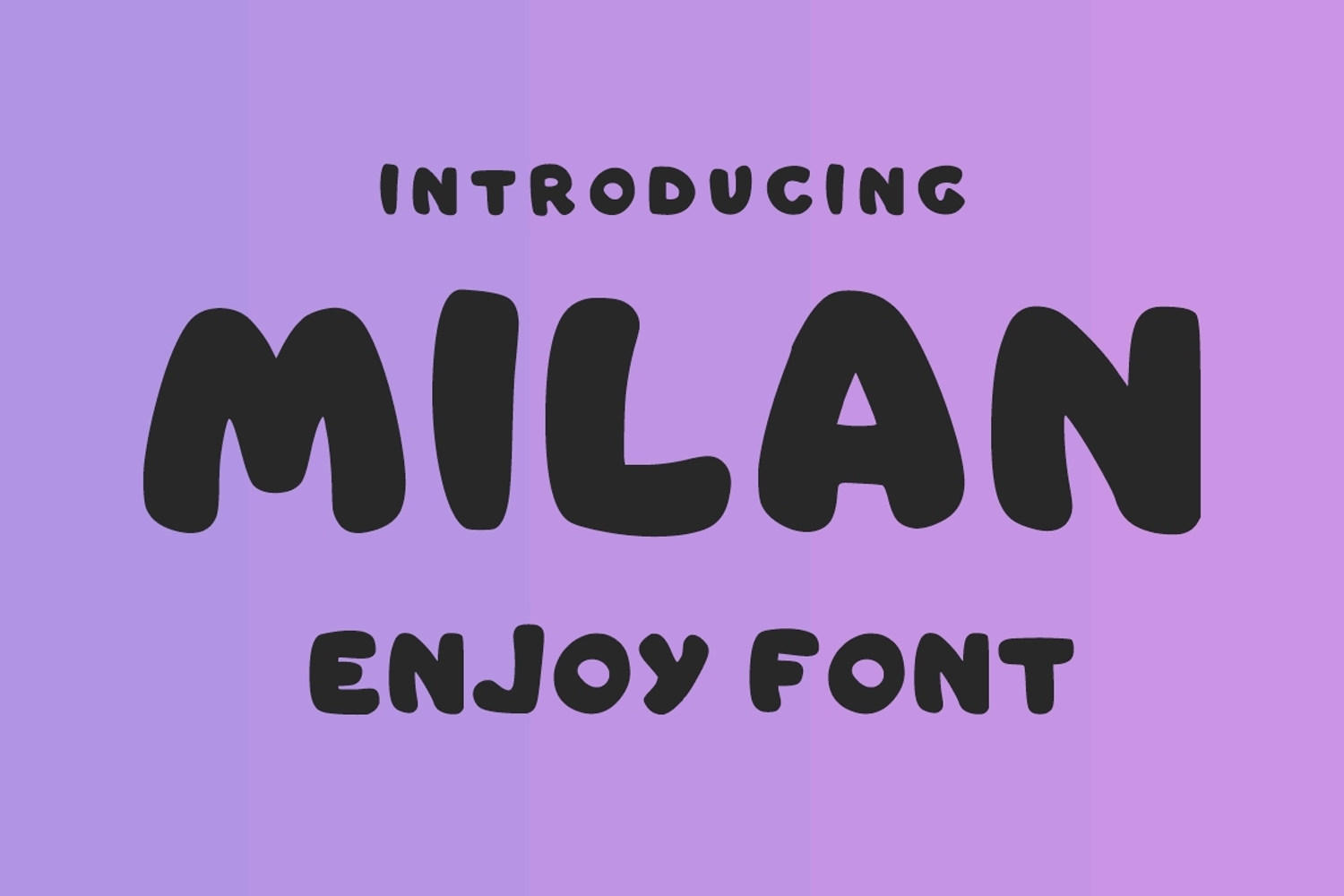
Milan
Milan is a bold and friendly font, that conveys impeccable joy. Whether you’re using it for crafts, digital design, presentations, greeting cards, or design t-shirts, this font has the potential to become your favorite go-to font for each of your children’s projects.